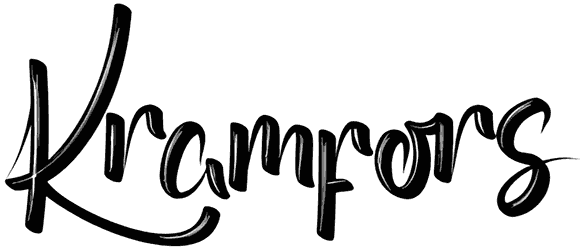
Kramfors Font
Let’s trim your present modern design with an aesthetic and appealing face that will make it more impressive. This brush font, named Kramfors, has a realistic handwritten style and brings an urban vibe to your words. With its smooth and adorable face, this script font can be matched with various designs from postcards to apparel, even without numbers and punctuation support.